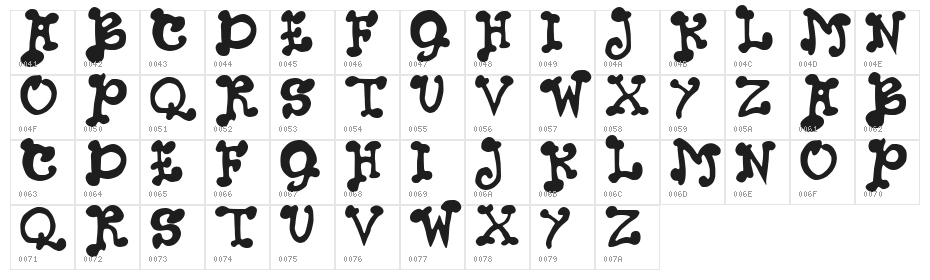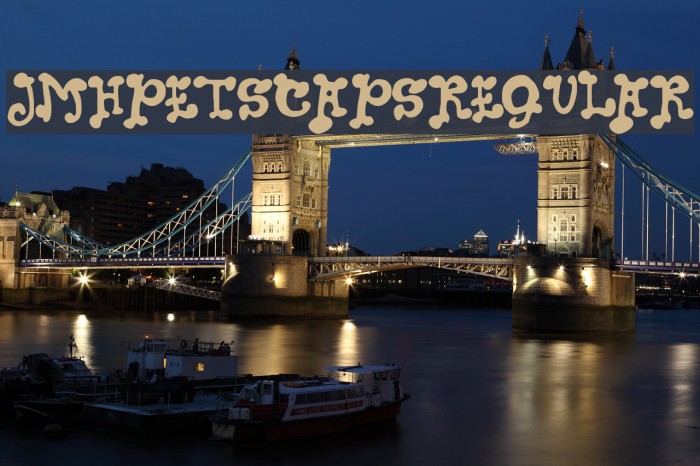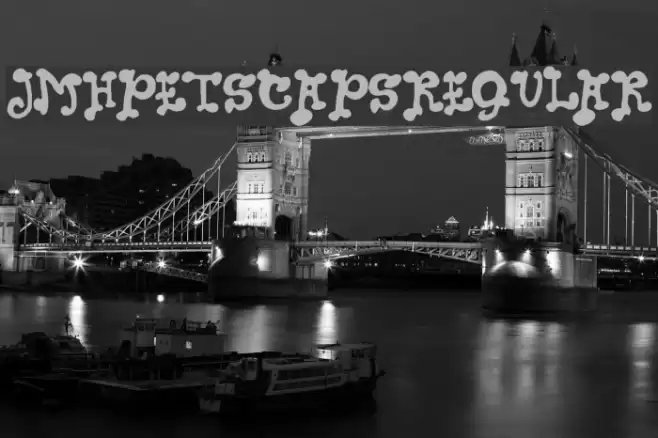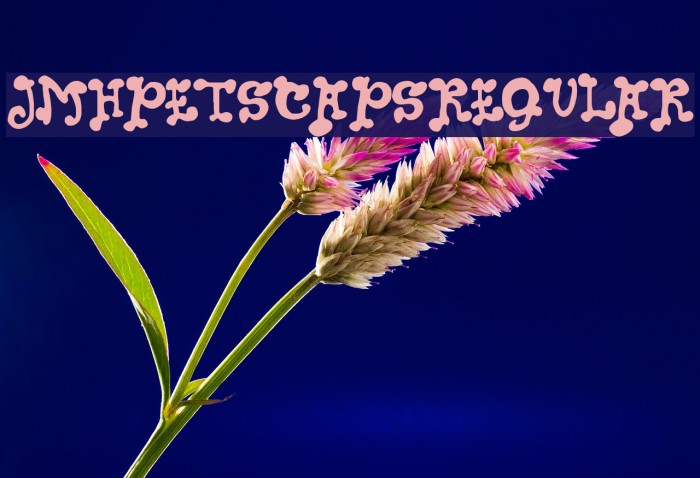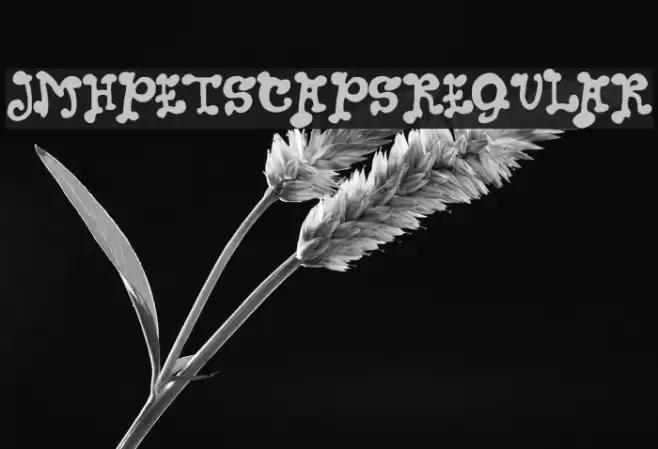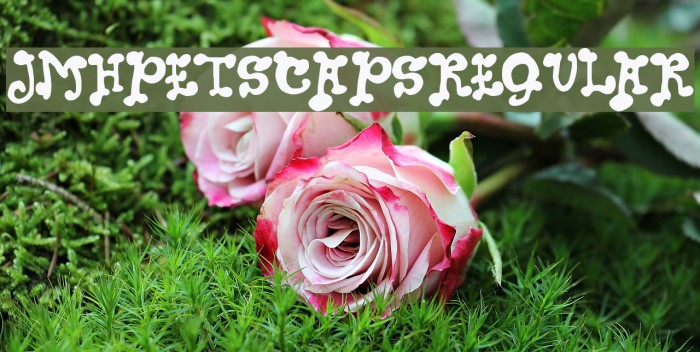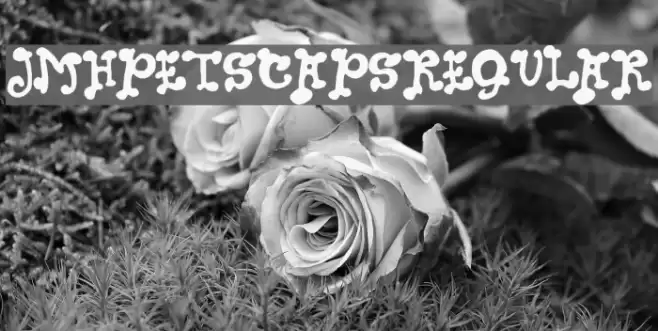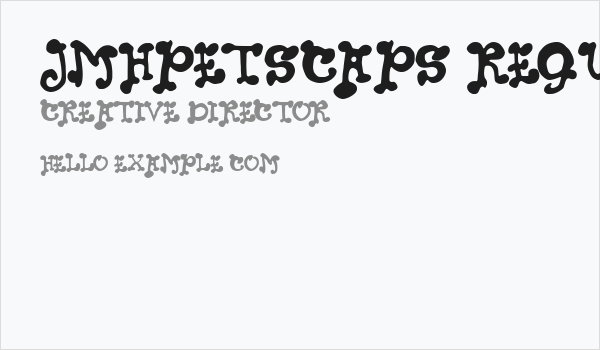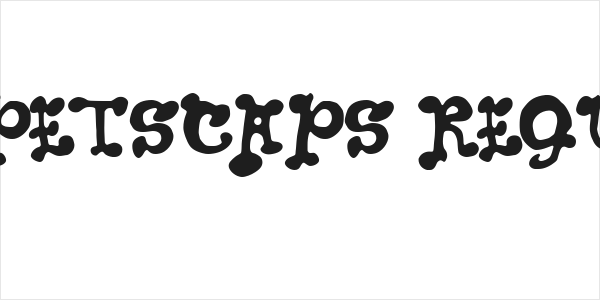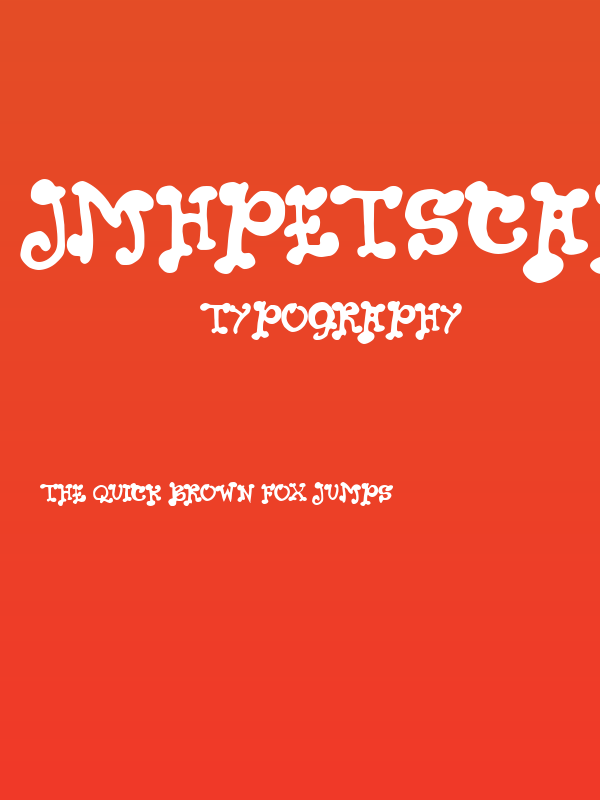
JMHPETSCAPS-Regular Font
JMHPETSCAPS-Regular Description
This font features a playful and whimsical design, characterized by its bold, rounded shapes and exaggerated serifs. Each letter is adorned with unique bulbous terminals, giving it a cartoonish and fun appearance. The strokes are thick and consistent, providing a strong visual impact. The overall style is highly decorative, making it suitable for creative and informal applications. Its distinctive look is sure to capture attention and add a lively touch to any project.